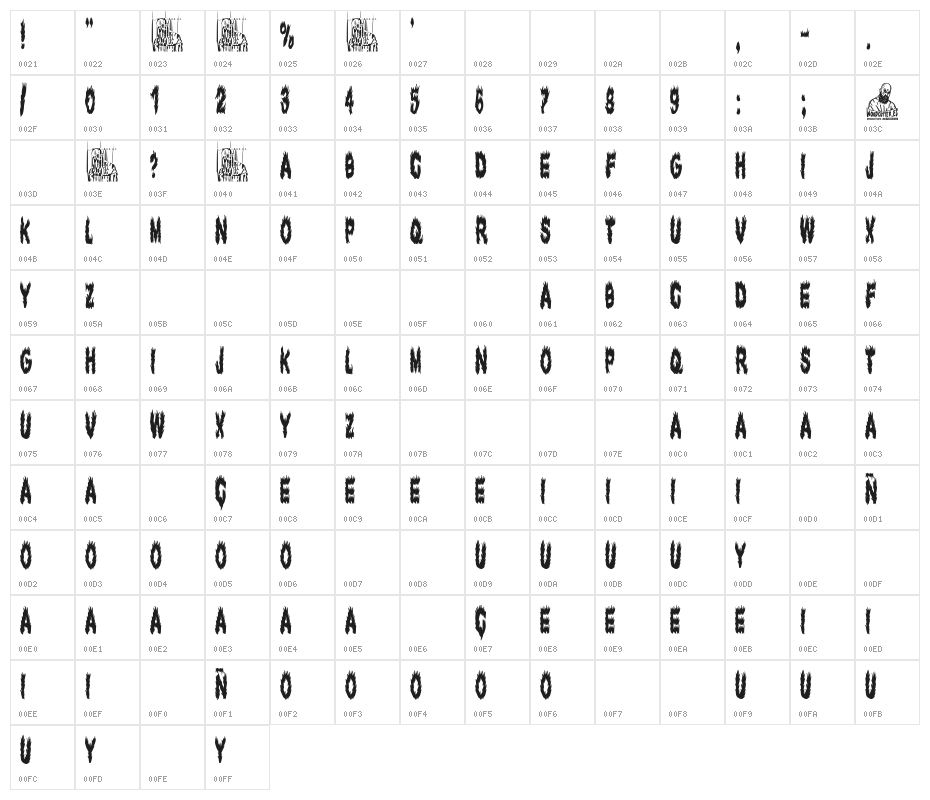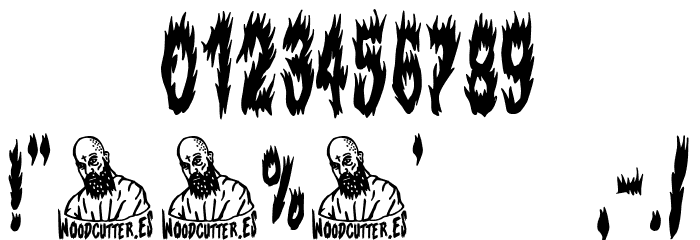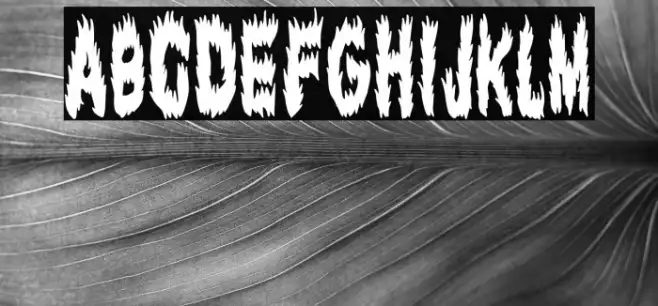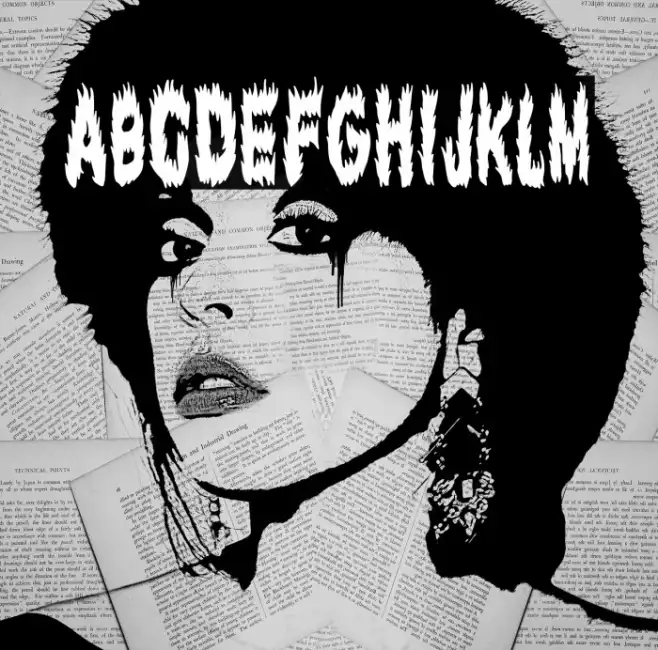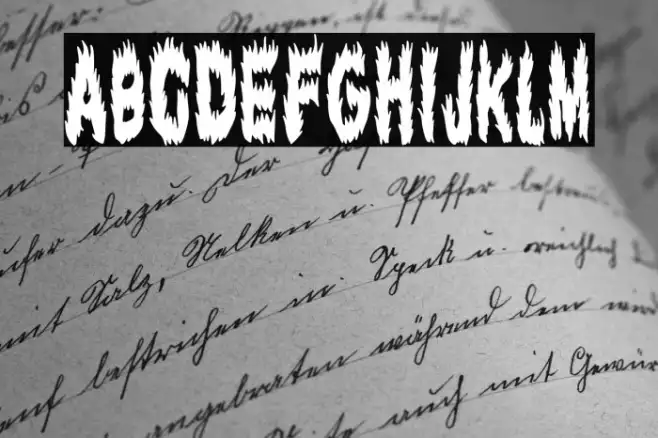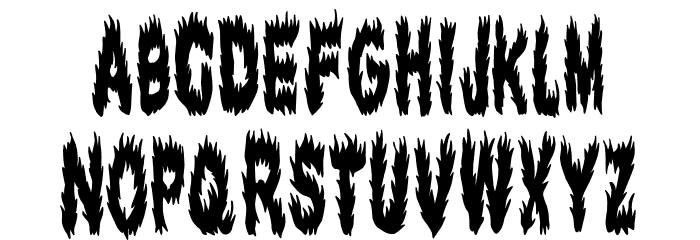
Extreme Fire Font
Extreme Fire Description
This font features a bold and dynamic design, characterized by its flame-like edges that give each character a sense of movement and intensity. The uppercase and lowercase letters, as well as the numbers, are crafted with a jagged, fiery appearance, making them stand out with a dramatic flair. The special characters maintain this theme, ensuring a cohesive look across all elements. This font is perfect for projects that require a strong, eye-catching visual impact, such as posters, event promotions, or themed branding.
| Proposed Projects | Ideal for event posters, themed branding, Halloween designs, and eye-catching advertisements. |